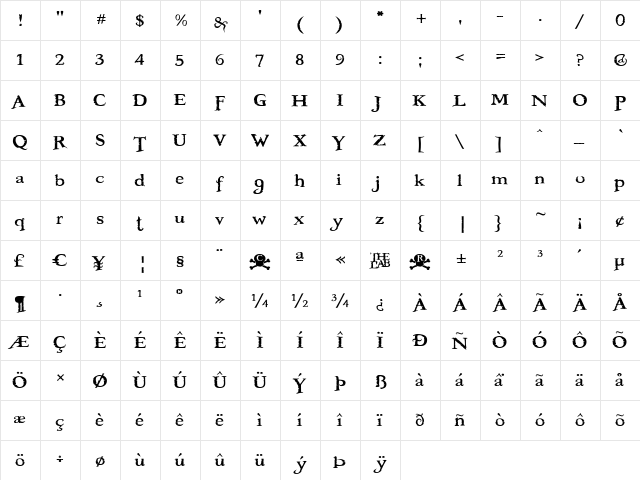
Booter - Five Zero Regular Font Preview
Booter - Five Zero Regular
Booter - Five Zero Regular Font Details
| Designer | Outlines by Graham Meade, space geometry by Apostrophe ('). |
Design Context for Booter - Five Zero Typeface
Booter - Five Zero is a composed and adaptable typeface that performs quietly and consistently across a wide range of design contexts.